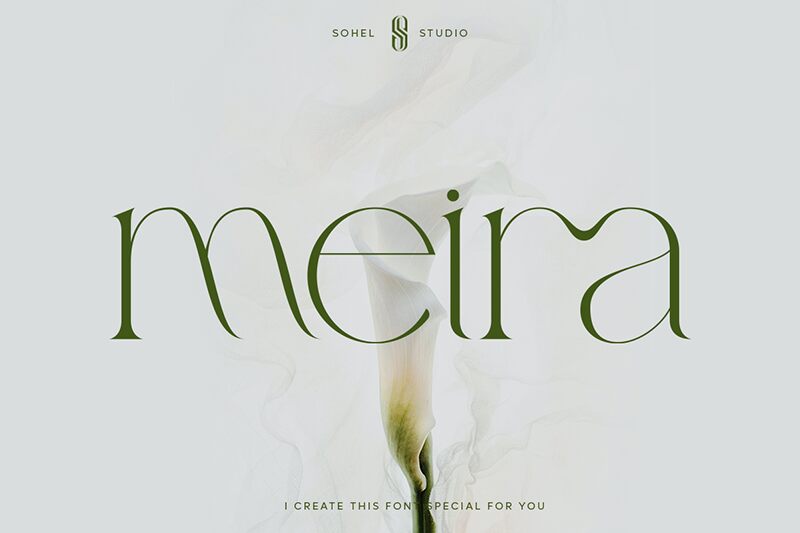
Meira font is an elegant light serif created by Sohel Studio. The font has a sophisticated modern look with refined details and is ideal for contemporary applications. Properly control the visual hierarchy of your text and stand out with this amazing typography.
Use this free serif font in fashion-related branding designs such as logos, magazine covers, packaging, book covers, printed materials such as business cards or letter marks. Other applications may include websites, social media platforms, promotional videos and much more.
Meira Features:
- Uppercase & Lowercase
- Alternates & Ligatures
- Numerals & Punctuation
- Accented characters
- Multilingual Support